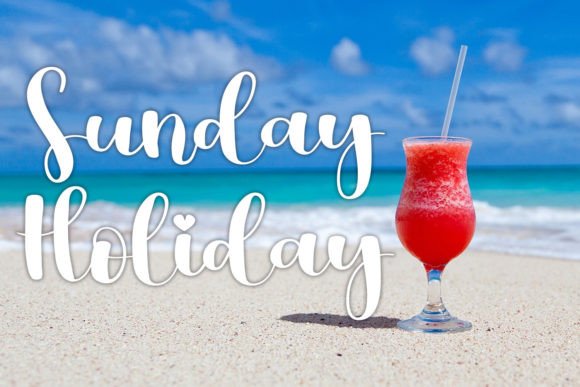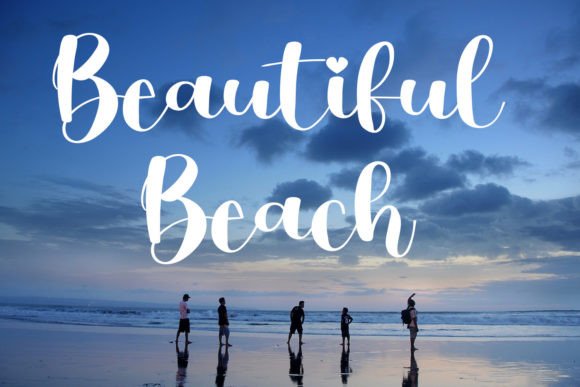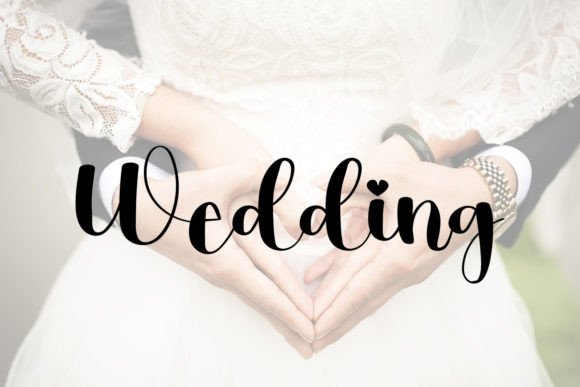
Introducing Blueberry Font: The Perfect Blend of Class and Modernity
Are you a designer or crafter looking for a font that exudes elegance and sophistication? Look no further than Blueberry Font, a stunning handwritten font that is sure to become your new favorite. With its masterful blend of classy calligraphic influences and contemporary flair, Blueberry Font is the perfect choice for anyone looking to elevate their projects to the highest level.
The Story Behind Blueberry Font
Blueberry Font is more than just a font – it’s a work of art. Designed with love and care, this exquisite handwritten font is the brainchild of a talented designer who sought to create a typeface that would capture the essence of elegance and refinement. The result is a font that is both timeless and modern, with a unique charm that is sure to captivate audiences.
What Makes Blueberry Font So Special?
So, what sets Blueberry Font apart from other fonts on the market? For starters, its beautiful calligraphic influences give it a level of sophistication that is hard to find in other handwritten fonts. At the same time, its contemporary feel ensures that it remains fresh and modern, making it perfect for a wide range of design applications.
Key Features of Blueberry Font
- Exquisite Handwritten Design: Blueberry Font boasts a stunning handwritten design that is both elegant and refined.
- Classy Calligraphic Influences: The font’s calligraphic influences give it a level of sophistication that is hard to find in other handwritten fonts.
- Contemporary and Fresh: Despite its classic influences, Blueberry Font feels modern and fresh, making it perfect for contemporary design projects.
- Perfect for a Wide Range of Projects: Whether you’re working on a logo, branding project, or craft project, Blueberry Font is the perfect choice.
How to Use Blueberry Font in Your Projects
Blueberry Font is incredibly versatile, making it perfect for a wide range of design applications. Here are just a few ideas to get you started:
- Logos and Branding: Use Blueberry Font to create a stunning logo or brand identity that exudes elegance and sophistication.
- Stationery and Invitations: Add a touch of class to your stationery and invitations with Blueberry Font.
- Craft Projects: Use Blueberry Font to add a personal touch to your craft projects, such as scrapbooking, card making, and more.
- Digital Design: Blueberry Font is perfect for digital design projects, such as social media graphics, blog posts, and more.
Why Designers and Crafters Love Blueberry Font
Designers and crafters alike are falling in love with Blueberry Font, and it’s easy to see why. Here are just a few reasons why:
- Elegant and Refined: Blueberry Font is the perfect choice for anyone looking to add a touch of elegance and refinement to their projects.
- Easy to Read: Despite its elegant design, Blueberry Font is incredibly easy to read, making it perfect for body text and more.
- Highly Versatile: Blueberry Font is incredibly versatile, making it perfect for a wide range of design applications.
In conclusion, Blueberry Font is a true gem that is sure to become a favorite among designers and crafters alike. With its exquisite handwritten design, classy calligraphic influences, and contemporary feel, it’s the perfect choice for anyone looking to elevate their projects to the highest level. So why wait? Fall in love with Blueberry Font today and bring your projects to life in a whole new way!